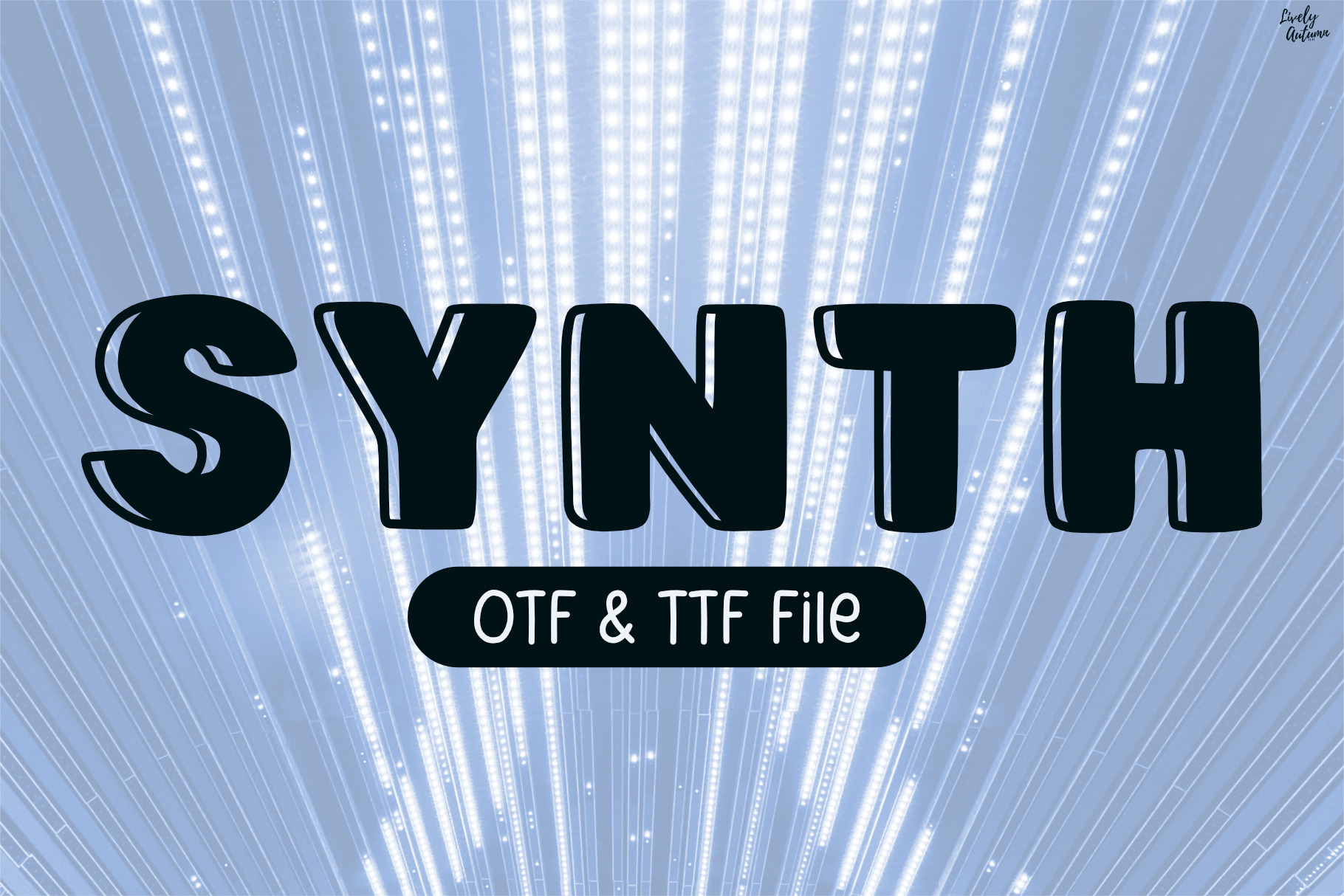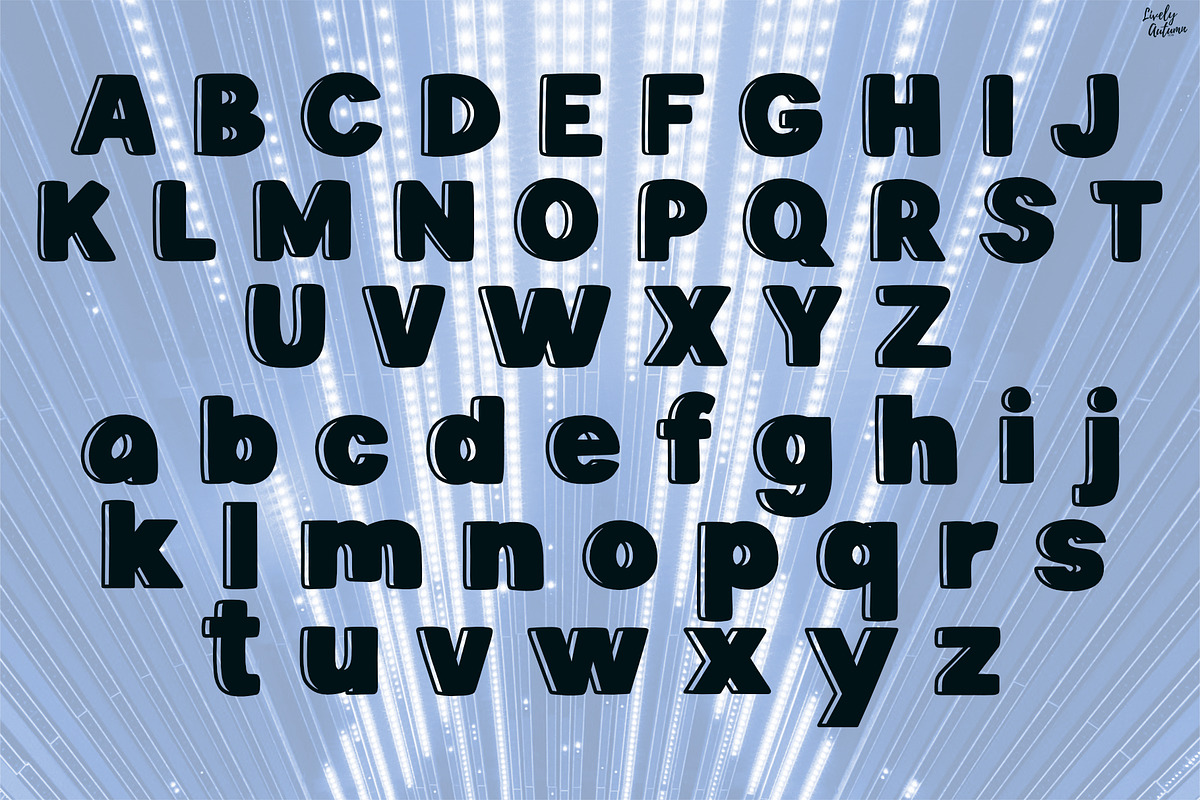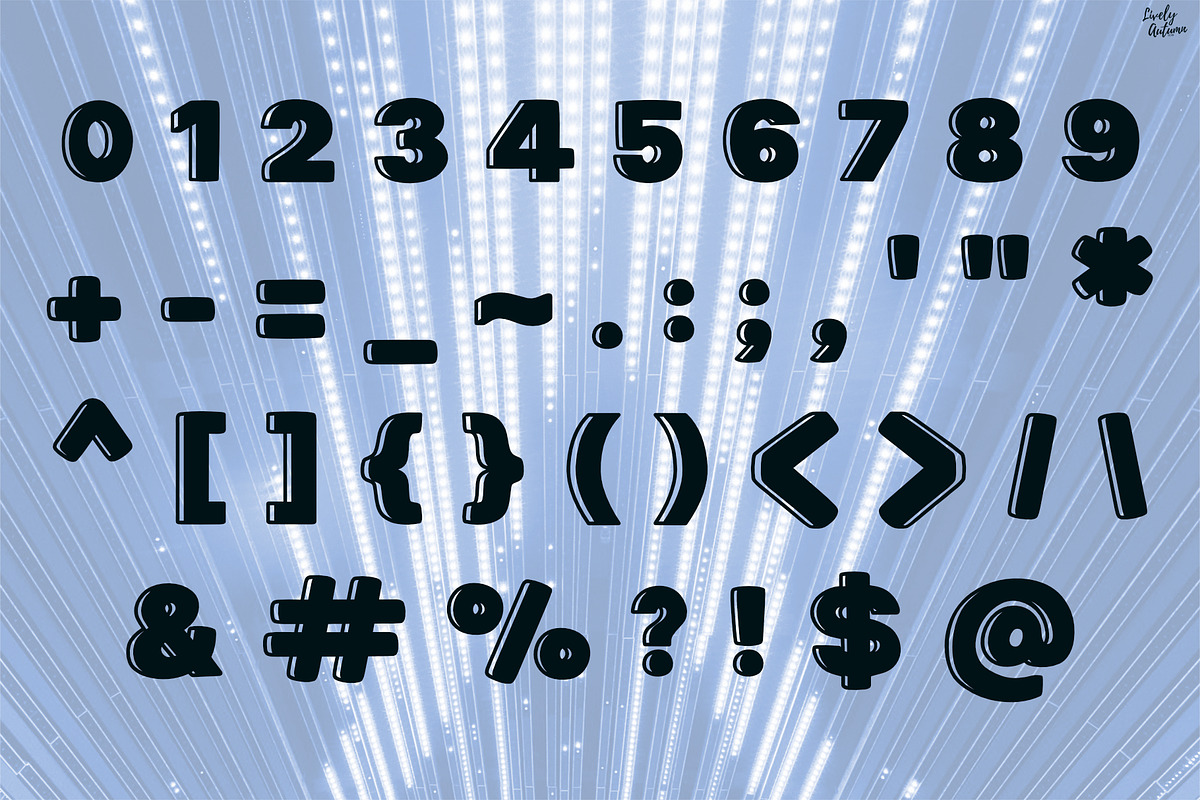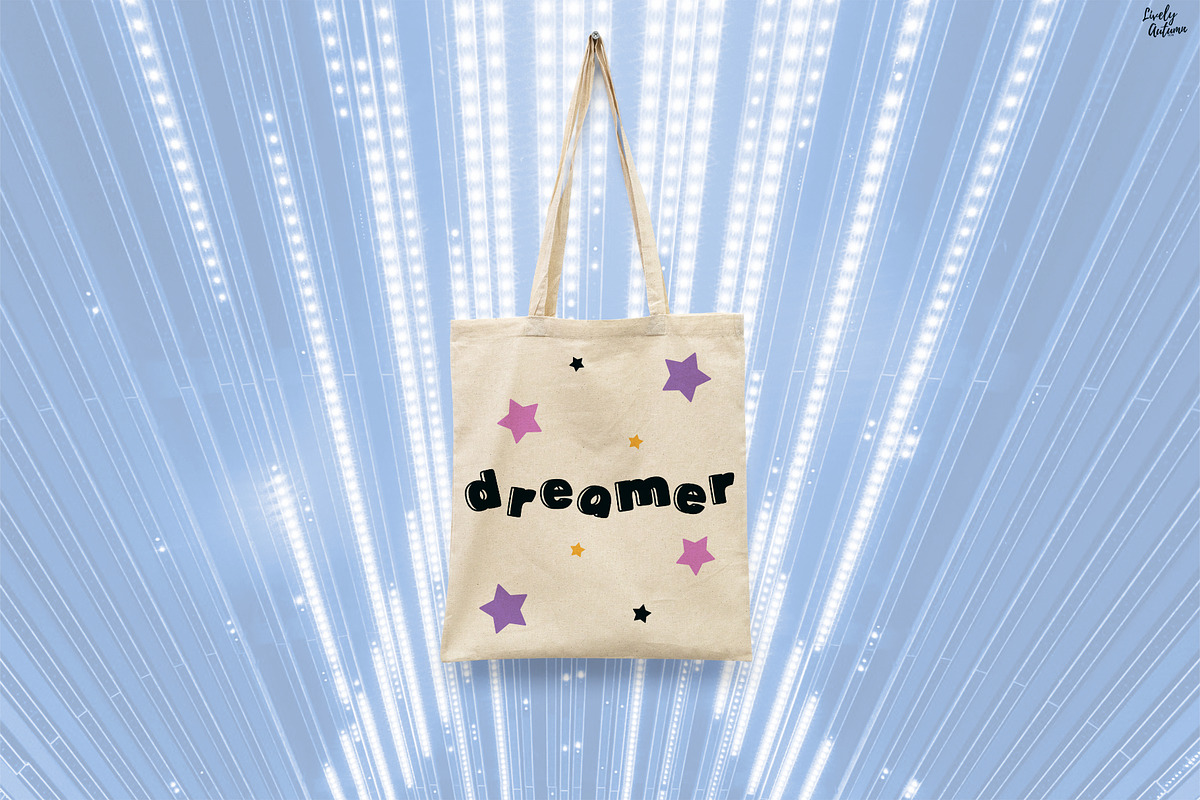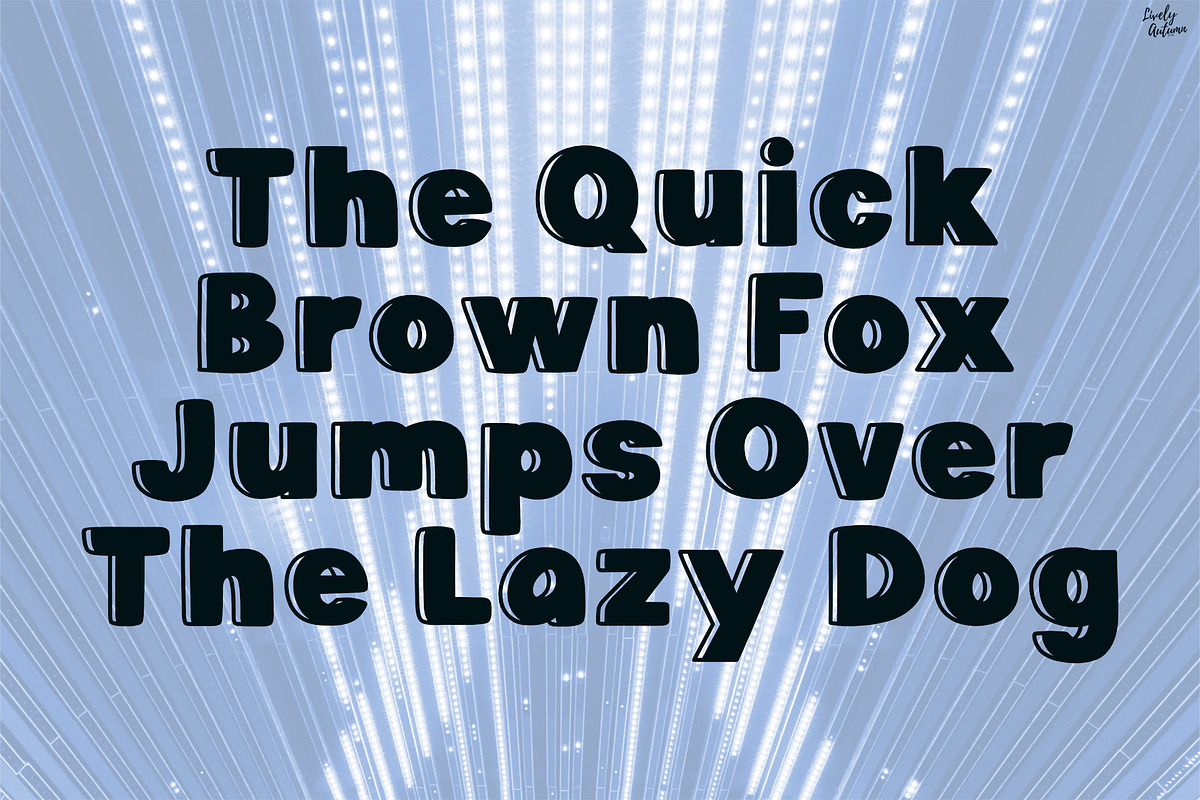
Synth | Bold display font
Synth is a bold handwritten font combines a modern handwritten style with a 3D futuristic feel. Perfect for technology, gaming, space and various projects. From invitations to posters, social media graphics, journals, stickers and much more.
Font includes: uppercase, lowercase, numbers, and punctuation